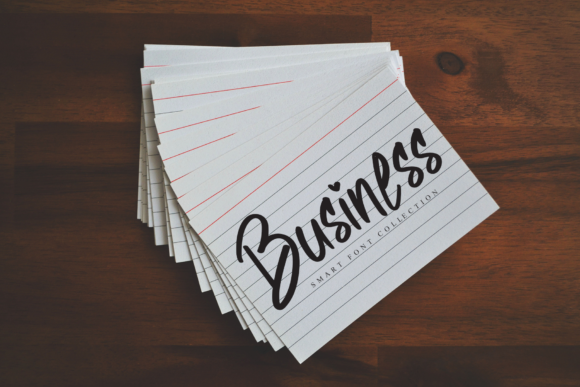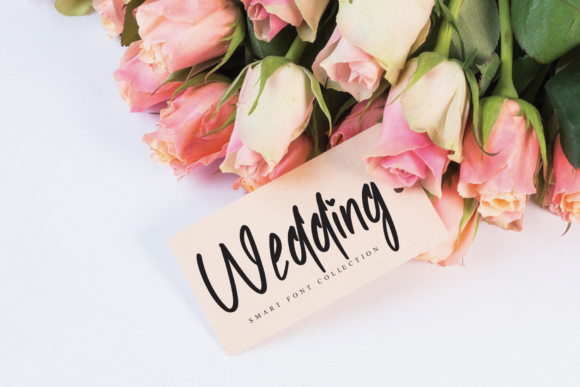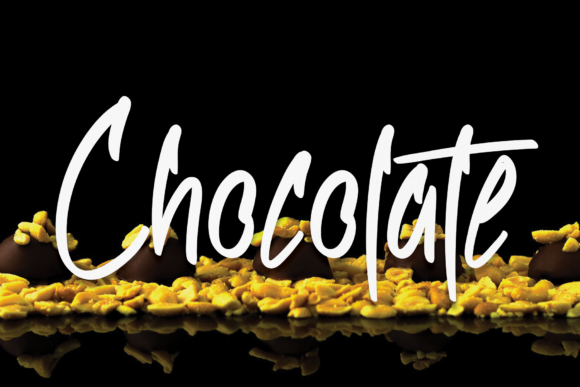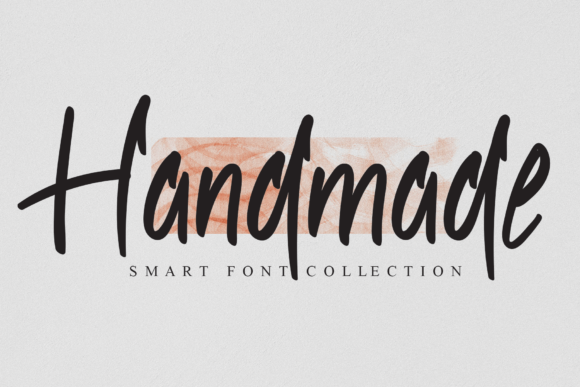
Attractive Font
About Attractive Font
Attractive is a relaxed, fashionable and cool handwritten font. It will look stunning on any poster flyer or print.